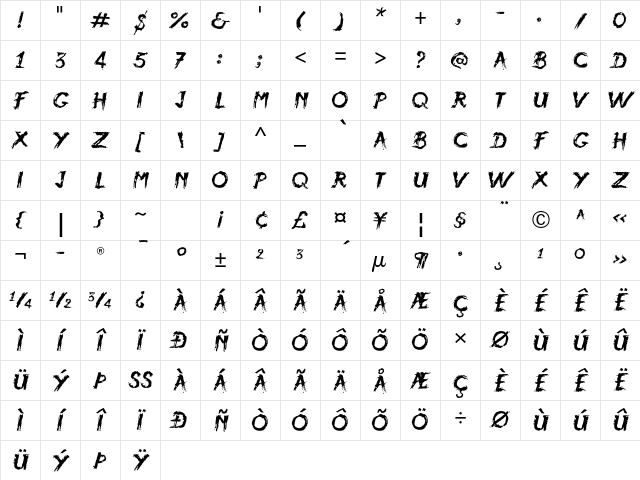
Atmosphere ITC Std Regular
Designer: Taouffik Semmad
Design Context for Atmosphere ITC Std
Atmosphere ITC Std is a composed and adaptable typeface that performs quietly and consistently across a wide range of design contexts.